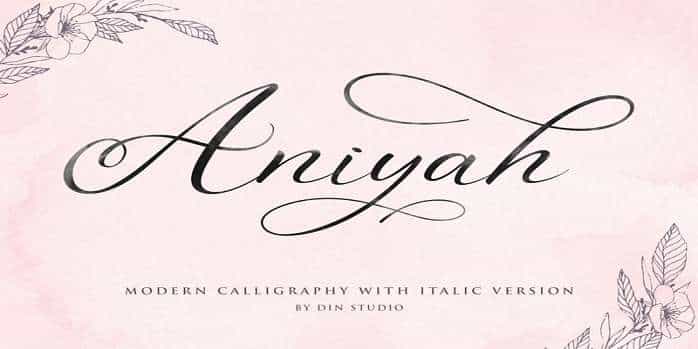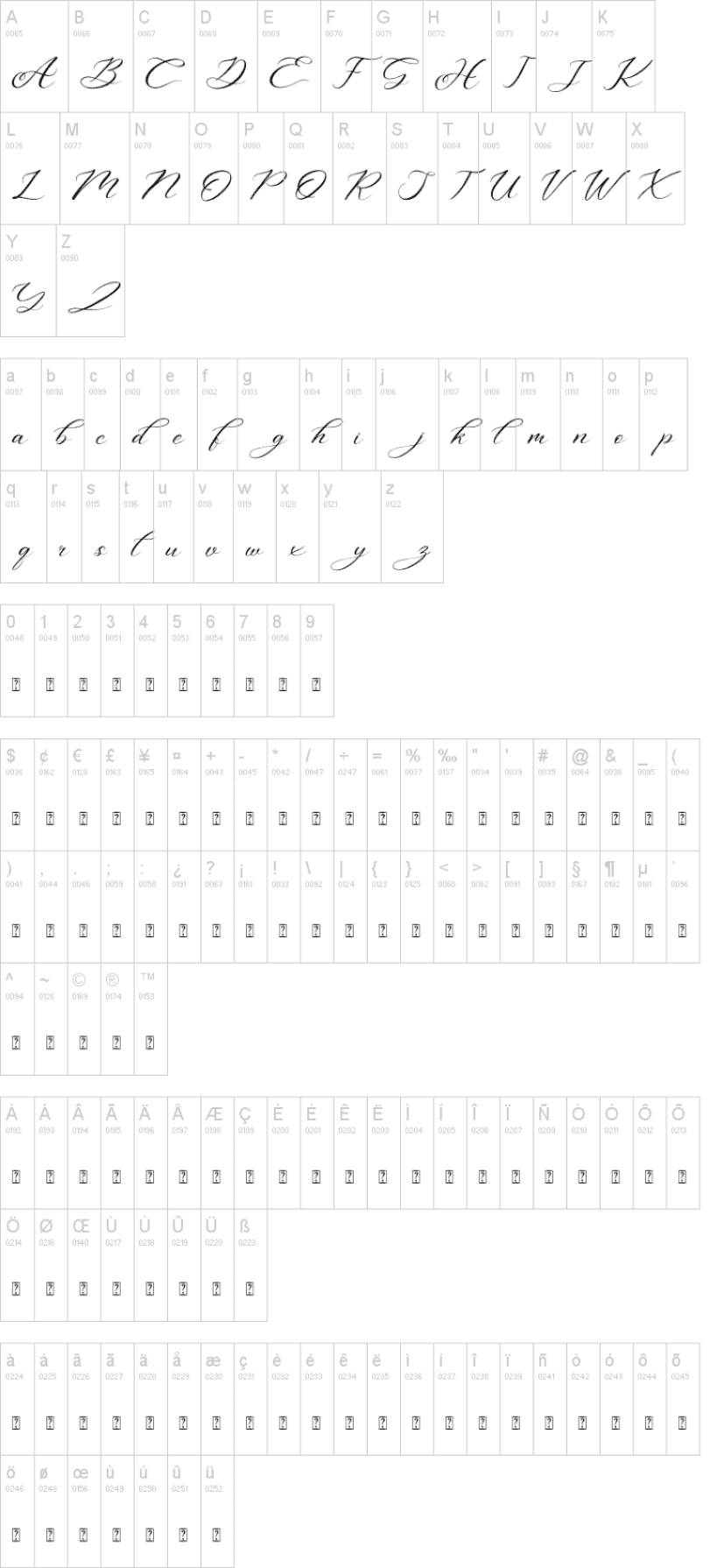
Discover Aniyah Font, part of the Calligraphy collection—a versatile and unique font perfect for adding a personal touch to your projects. Download it for free and enjoy crafting designs with style, from invitations to social media posts. This font is available exclusively for personal use, giving you the freedom to create without limits. Unlock your creativity with Aniyah Font today!
Aniyah Script is a beautiful calligraphy font which is available for free download. With the handwriting appearance from nature and modern appearance. It is bring beautiful and modern typeface. Aniyah Script is most suitable for a number of purposes such as posters, banners, logos, book covers, headings, printed materials, merchandise, social media, and many others.